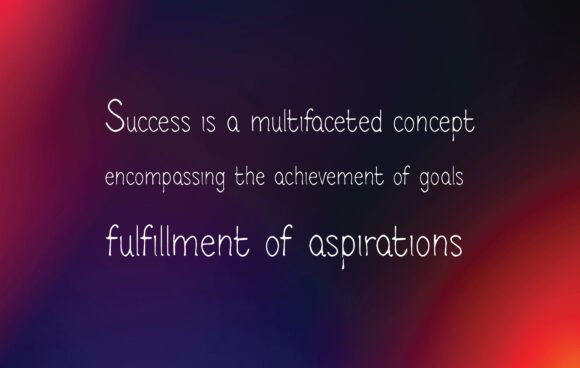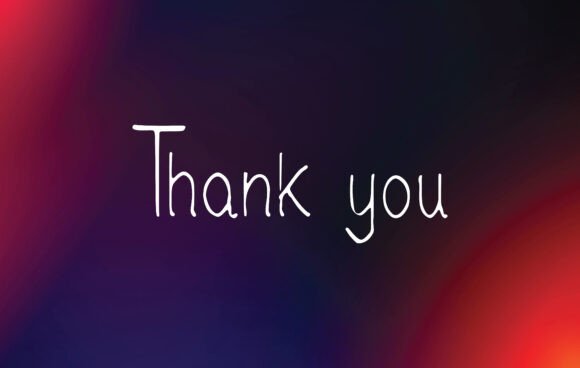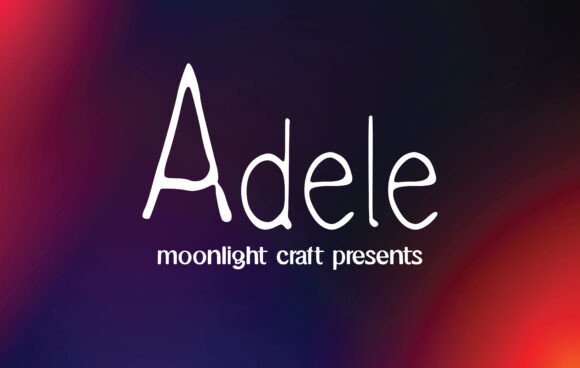
The Power of Adele Font: Elevate Your Designs with this Stunning Handwritten Font
I’ll never forget the time I was working on a branding project for a client who wanted a logo that exuded warmth and personality. I had spent hours scouring font libraries, but nothing seemed quite right. That’s when I stumbled upon Adele Font, and it was love at first sight! 💕 This lovely and beautiful handwritten font has been a game-changer for my design workflow, and I’m excited to share its magic with you.
An Honest Review of Adele Font
So, what makes Adele Font so special? Let’s dive into the good stuff! 😊
- ✨ Unique and eye-catching: Adele Font has a distinct, hand-crafted feel that sets it apart from more generic fonts.
- ✅ Highly versatile: Whether you’re designing a logo, creating a quote graphic, or crafting a brand identity, Adele Font adapts seamlessly.
- 💫 Emotional connection: The font’s warm, cursive style evokes feelings of comfort and approachability, making it perfect for brands that want to connect with their audience on a personal level.
Of course, no font is perfect, and Adele Font has a few minor quirks to consider:
- 🤔 Limited character set: While Adele Font has a wide range of characters, it may not support every language or special character.
- ⚠️ Not suitable for body text: Due to its decorative nature, Adele Font is best used for headlines, titles, or short phrases rather than lengthy blocks of text.
The Story Behind Adele Font
While the origins of Adele Font are unclear, it’s easy to imagine a designer pouring their heart into creating a font that would bring joy and personality to designs. Perhaps the designer was inspired by classic handwritten scripts, with a dash of modern flair. Whatever the story, Adele Font has become a beloved tool for creatives worldwide.
| Font Name | Adele Font |
| What type of designs is Adele Font best suited for? | Adele Font is perfect for creating eye-catching logos, branding, quotes, and other graphical designs where a personal touch is desired. |
| Is Adele Font available in multiple languages? | Adele Font may support multiple languages, but it’s essential to verify the character set to ensure it meets your needs. |
| Can I use Adele Font in both print and digital designs? | Absolutely! Adele Font is versatile and can be used in a wide range of design applications, from business cards to social media graphics. |